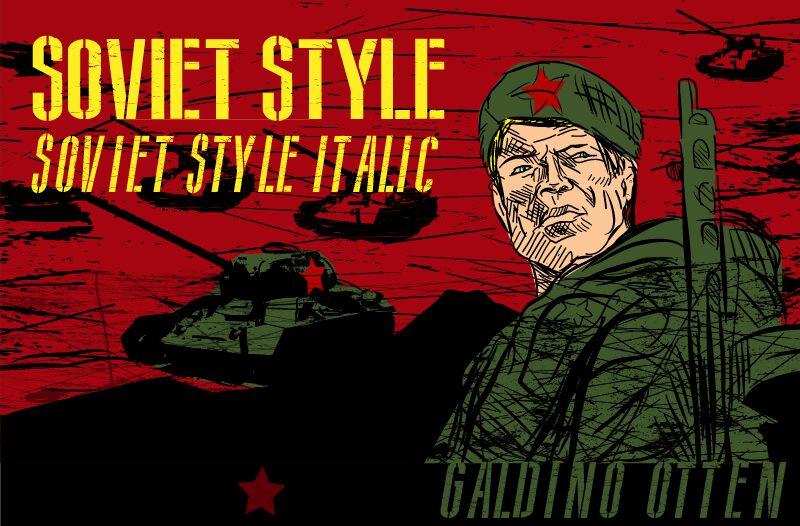
Soviet Style is a free eroded military display font with tall, tightly compressed letters and a severe industrial silhouette. Broad strokes are cut by thin scratches, chips, and occasional larger breaks, giving the face a weathered, screen-printed surface rather than a soft vintage patina.
Military history and industrial imagery make it a convincing fit for game graphics, film posters, and music packaging. The scraped texture can echo damaged metal, worn propaganda prints, or distressed equipment markings, turning a title into part of the setting rather than a clean overlay.
Soviet Style